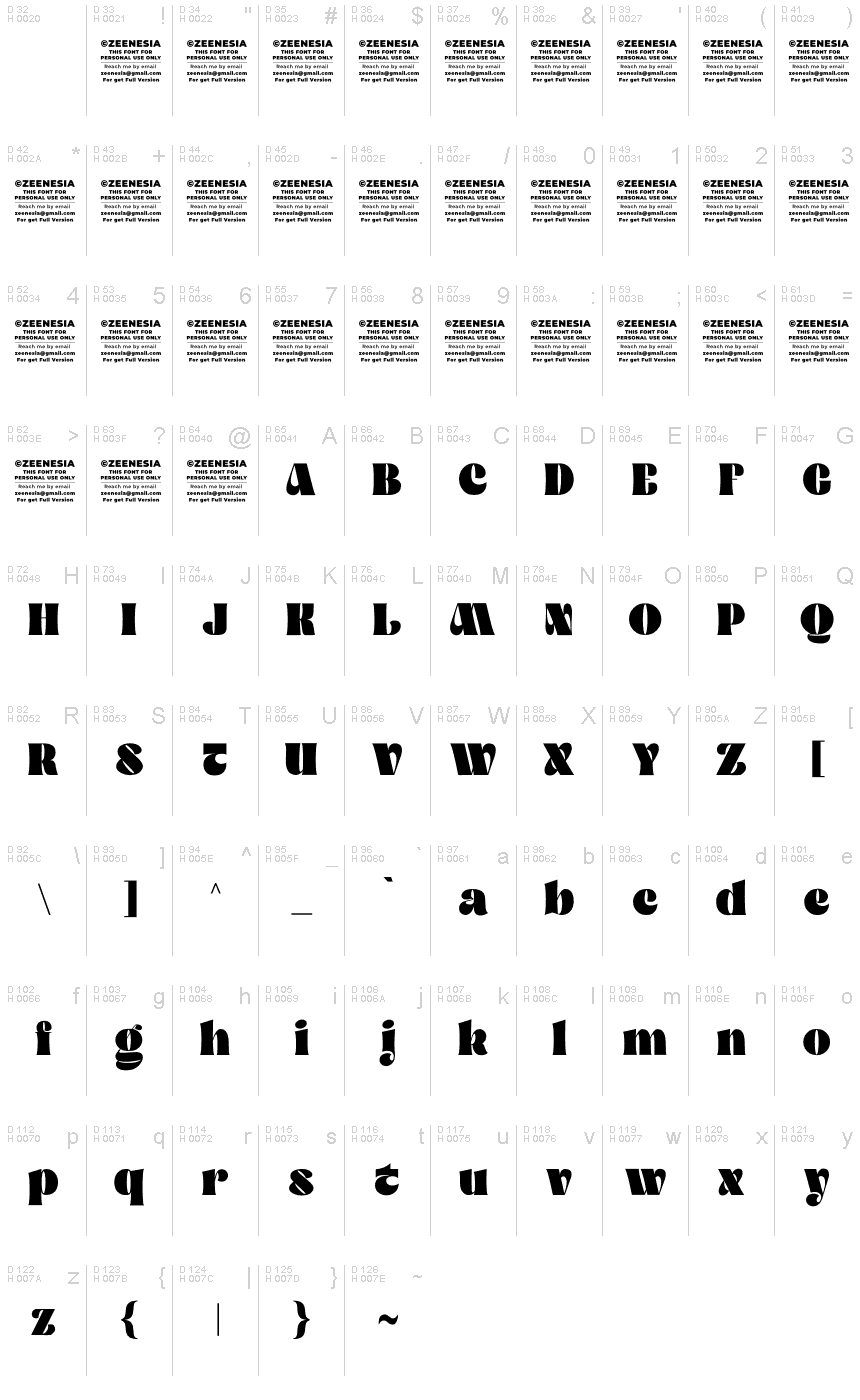
Qitella Personal Use Only
Qitella, the retro-inspired display font by Zeenesia Studio, boasts an extra-bold weight that demands attention. Its vintage charm adds a touch of nostalgia and authenticity to any project.
Perfect for eye-catching headlines, logos, posters, or album covers, this font captures the essence of retro aesthetics while offering a modern twist. Whether you're designing for a music festival lineup, a hipster café menu, or a fashion brand's lookbook, Qitella's striking presence will leave a lasting impression.
Elevate your designs with this versatile typeface and let its boldness speak for itself.